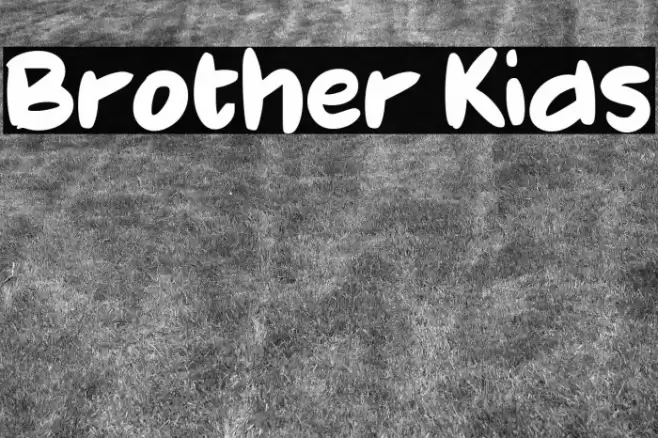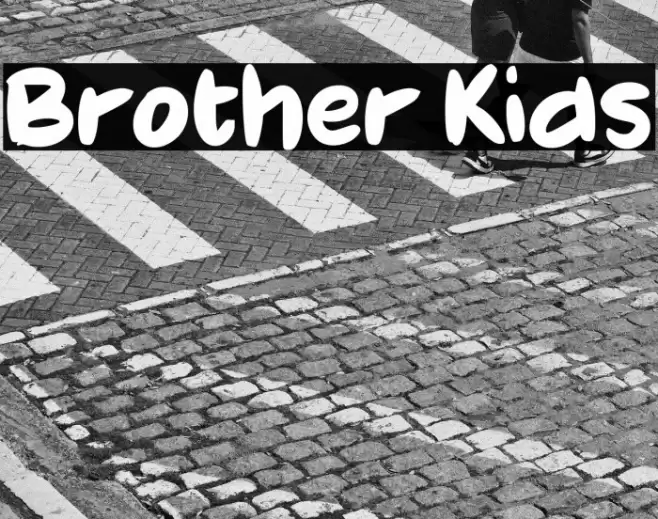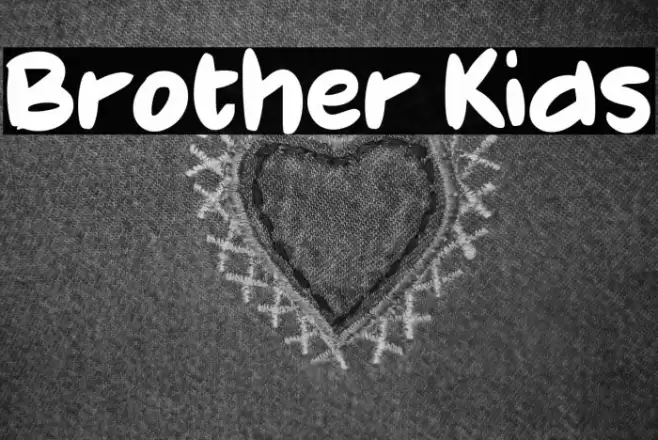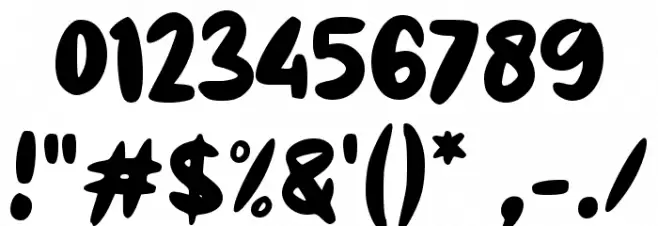
Brother Kids Font
Brother Kids Description
This playful and bold font features rounded, thick strokes that give it a friendly and approachable appearance. The characters are slightly irregular, adding a hand-drawn, whimsical feel. The uppercase and lowercase letters maintain a consistent style, with rounded edges and a slightly exaggerated width. Numbers and special characters follow the same design principles, ensuring a cohesive look across all elements. This font is ideal for projects that require a fun and informal touch, such as children's books, playful branding, or casual invitations.
A playful, bold font with rounded, thick strokes and a hand-drawn feel from Cartoon fonts.
- Font: Brother Kids
- Proposed Projects: Children's books, playful branding, casual invitations, posters, and social media graphics.
- Width: Expanded
- Overall Style: Playful, Casual